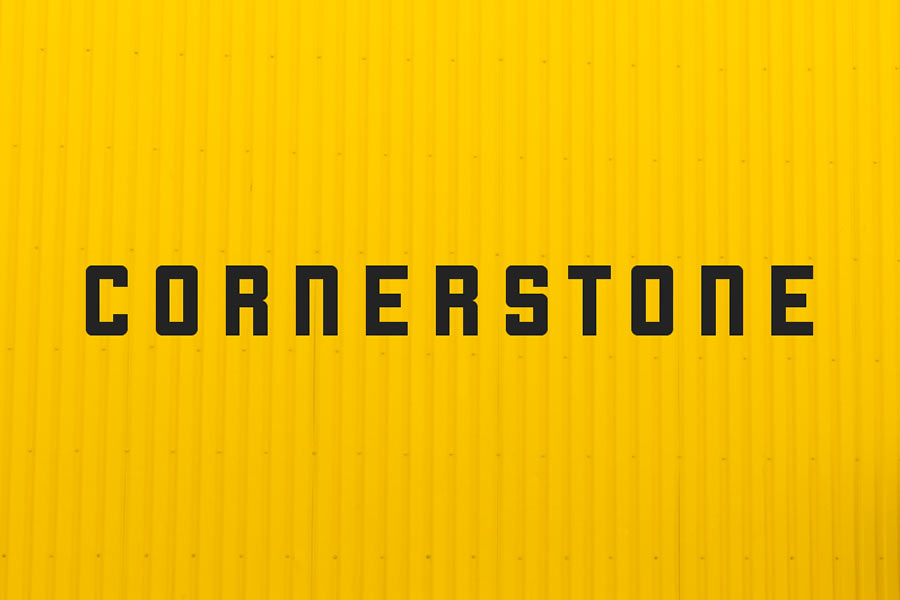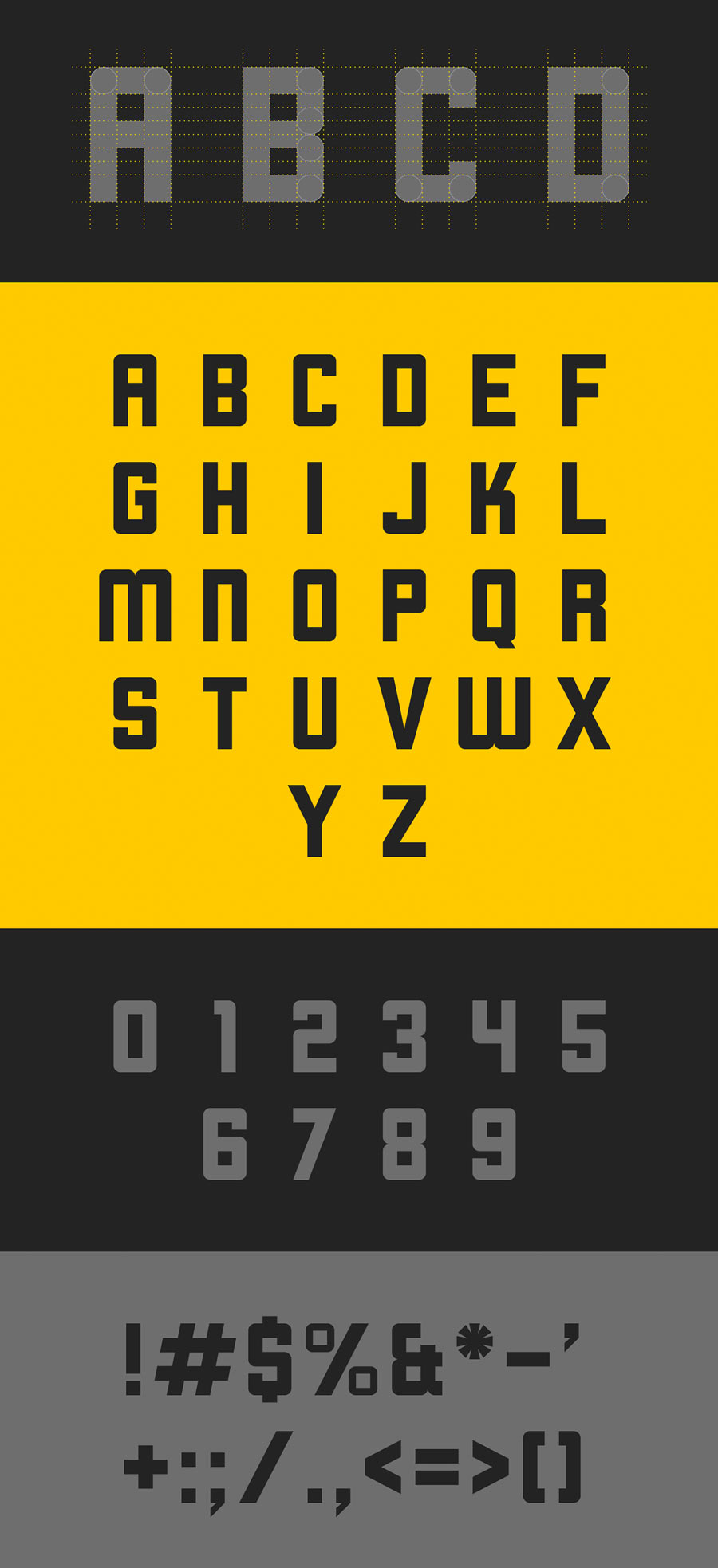
Cornerstone is a no-nonsense modular font that is available to download for free. It was constructed based on square blocks and circles for the rounded corners. This font is good for big display type for sports and urban themed designs.
- Designer: Zac Freeland